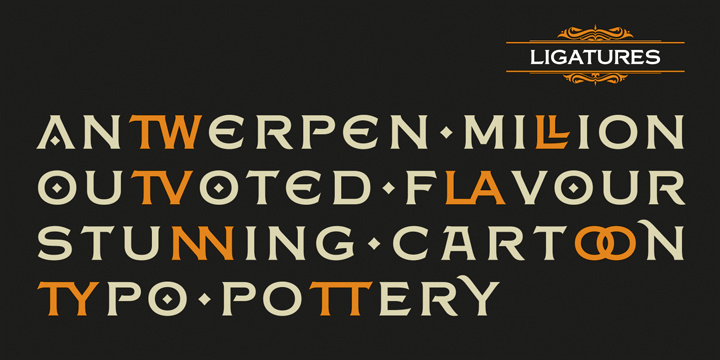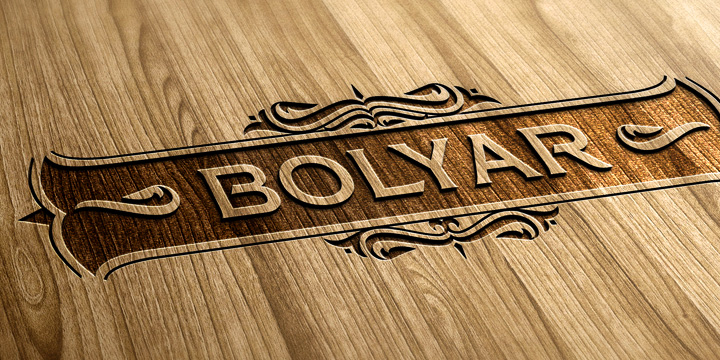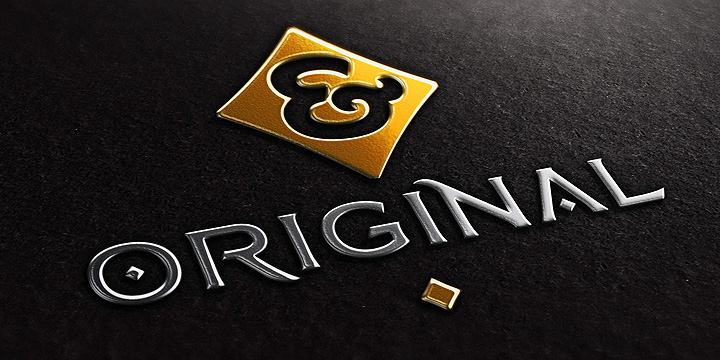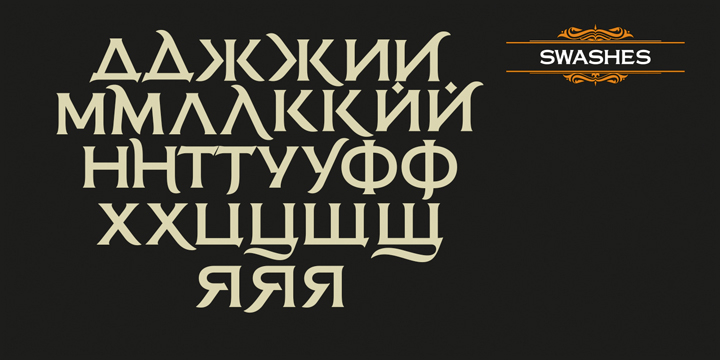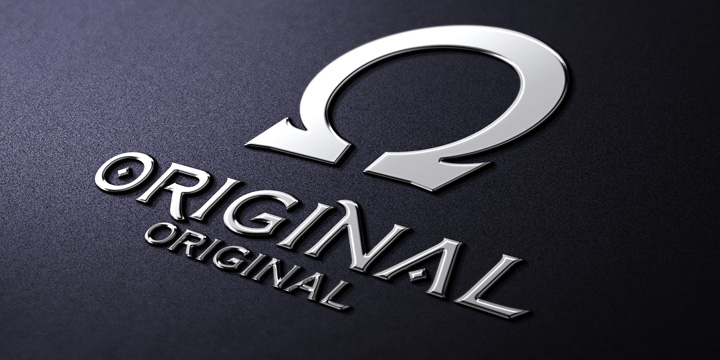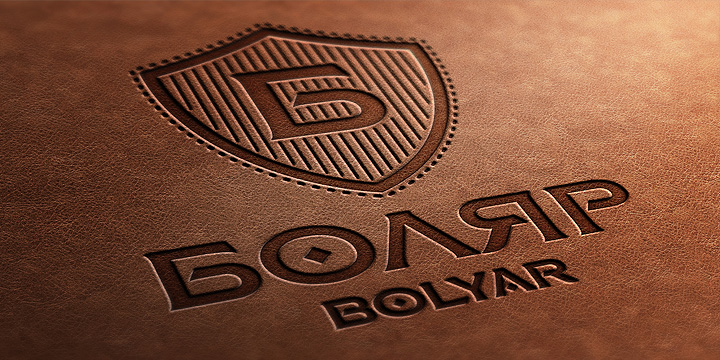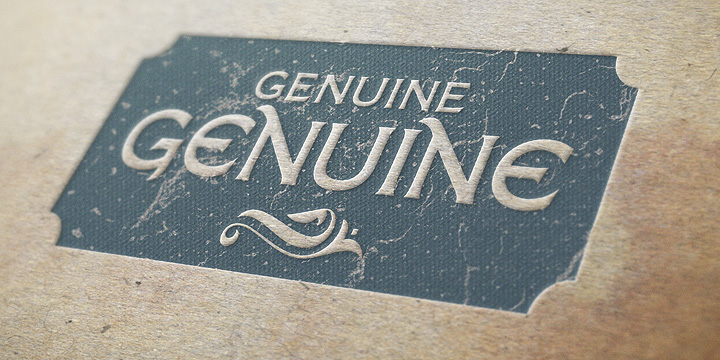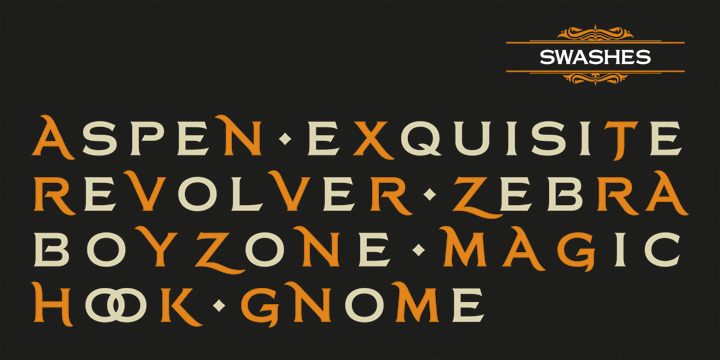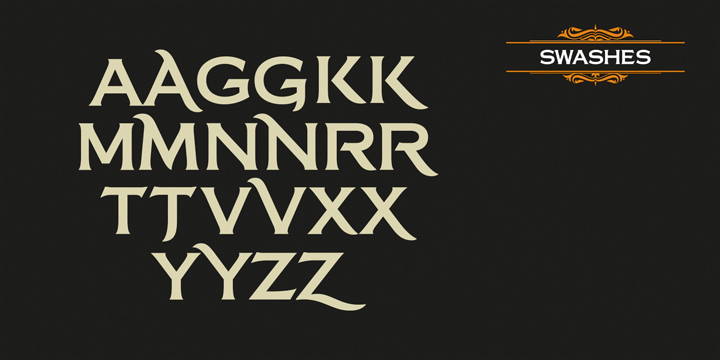
FM Bolyar is a western and display serif font family. This typeface has two styles and was published by The Fontmaker.
A Bolyar was a member of the highest rank of the feudal Bulgaria - second only to the ruling Tsar (king). This font is closely related to its name origin - we believe we’ve created a royal, majestic and elegant typeface. We’ve developed a wide set of alternates, swashes, ligatures and ornaments so that this font will be able to face your needs from simple body type to a strong dominating headline or even logo.
After the great success of the Original Bolyar Font the Fontmaker type foundry (Jordan Jelev & Vassil Kateliev) decided to create another ornamental version, called Bolyar Ornate.
This new font has more than 650 glyphs, supporting Cyrilic, Greek and all Latin alphabets; including attractive alternates, swashes and ligatures. We have a full set of brand new calligraphic ornaments designed exclusively for Bolyar’s flicker serifed, medial spurred modern Roman look.
It is very useful both for mid-size body text and for headlines, letterhead or logotypes.
Alternates, Swashes and Ligatures will ease extremely your work and you will able to customize every letter according to your needs.